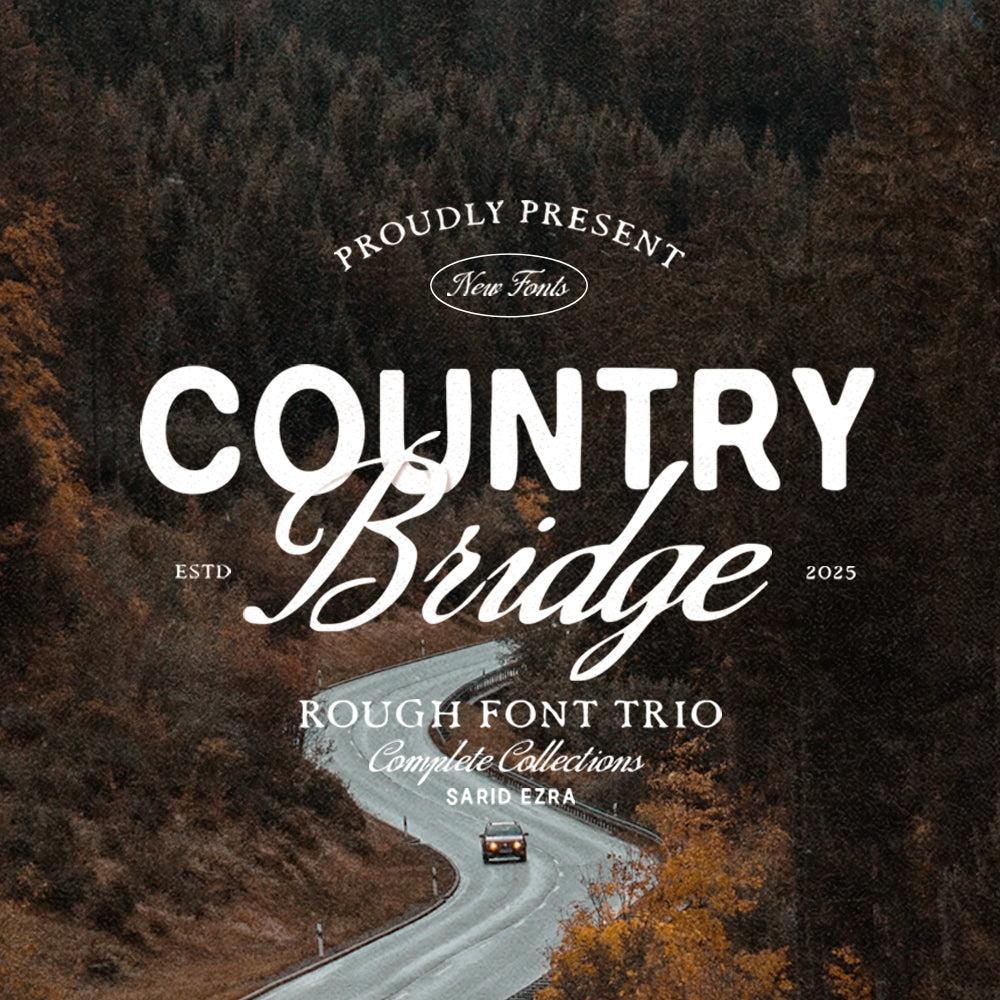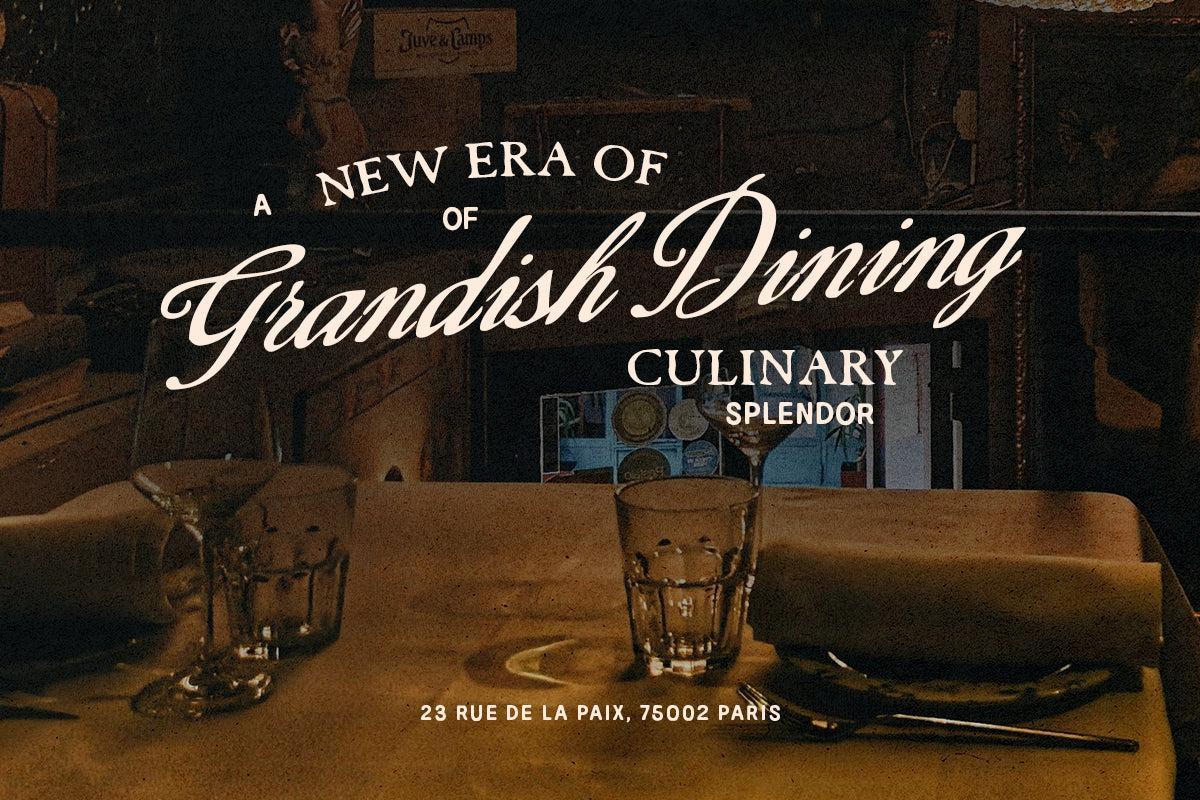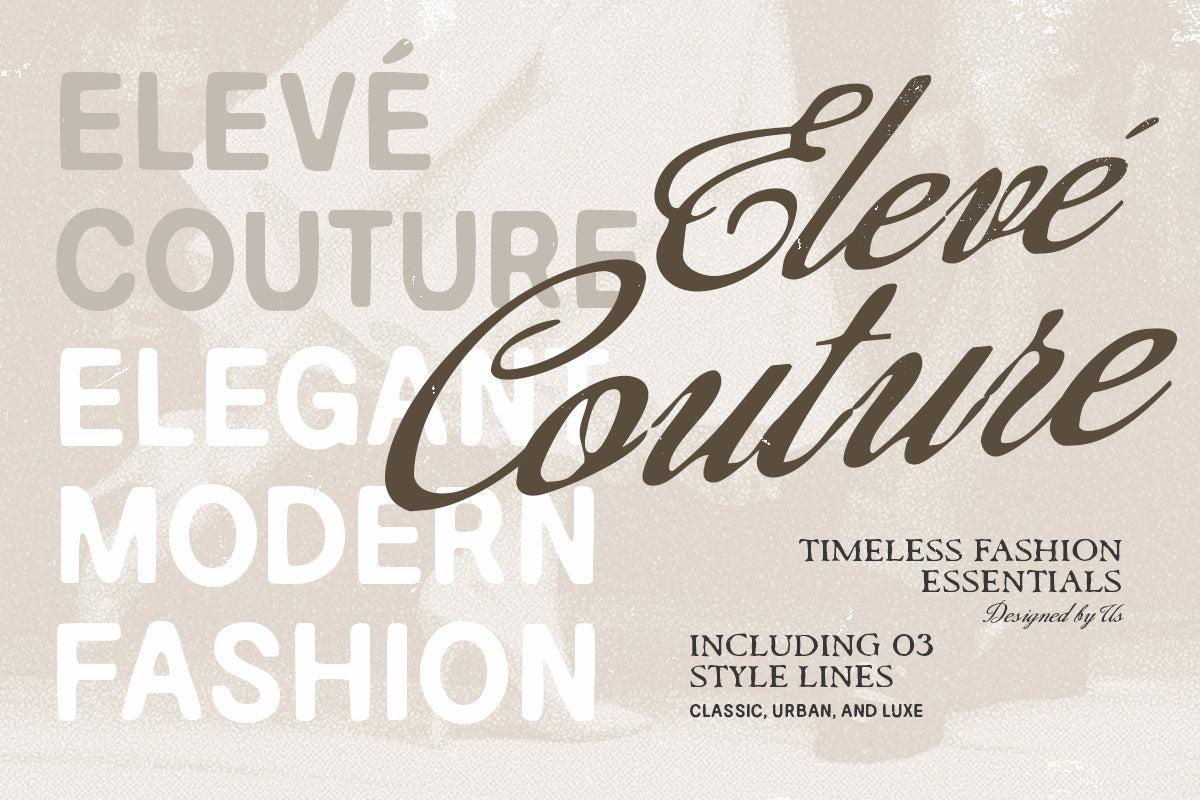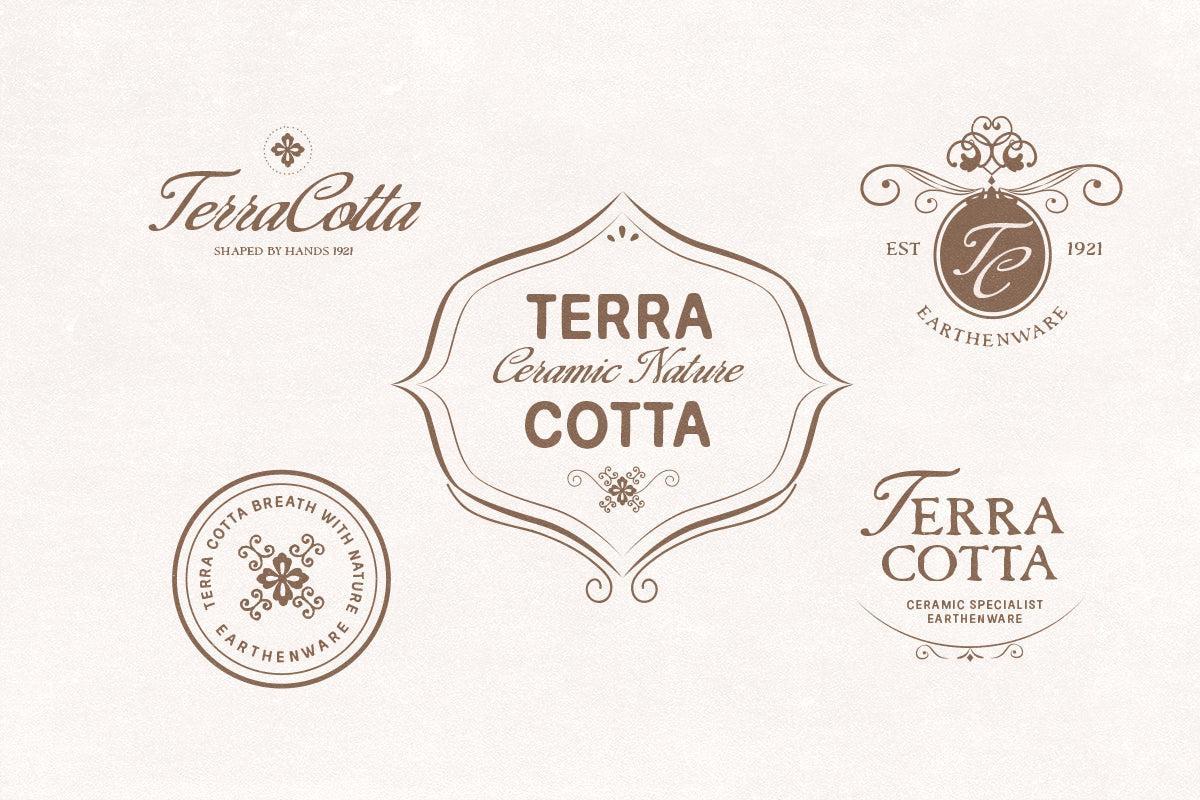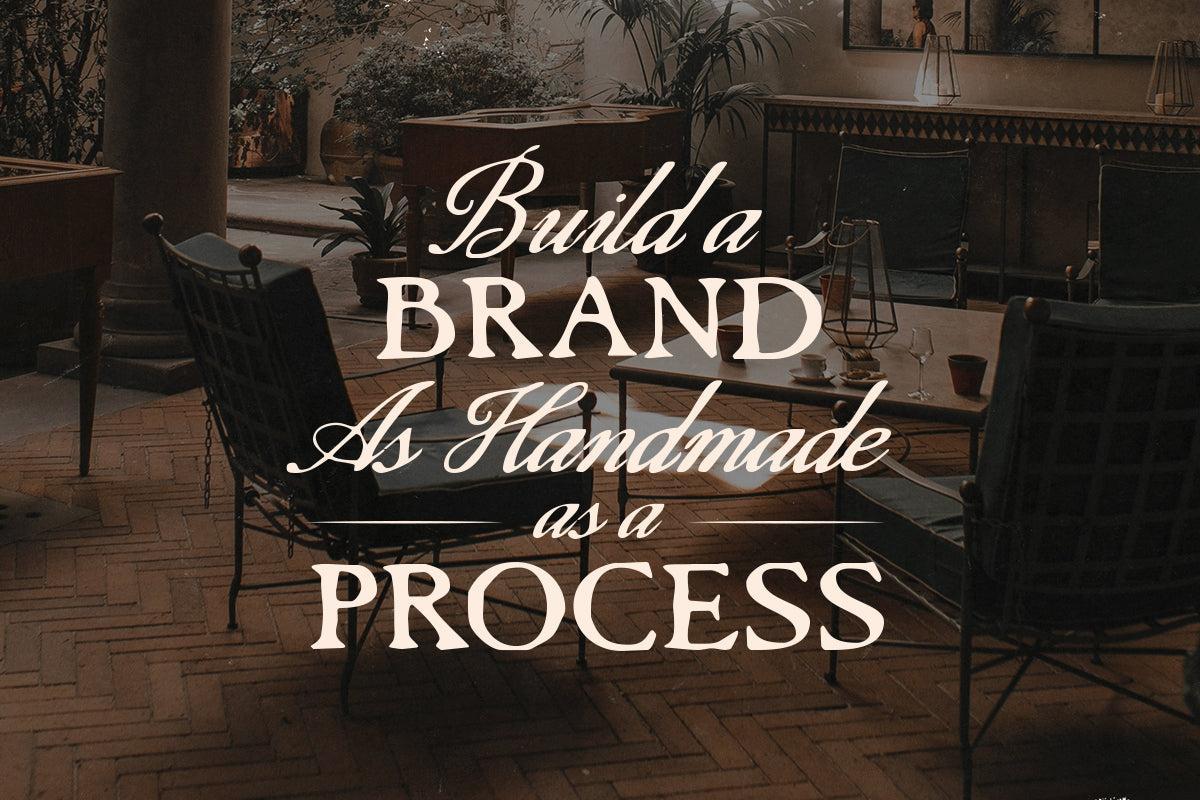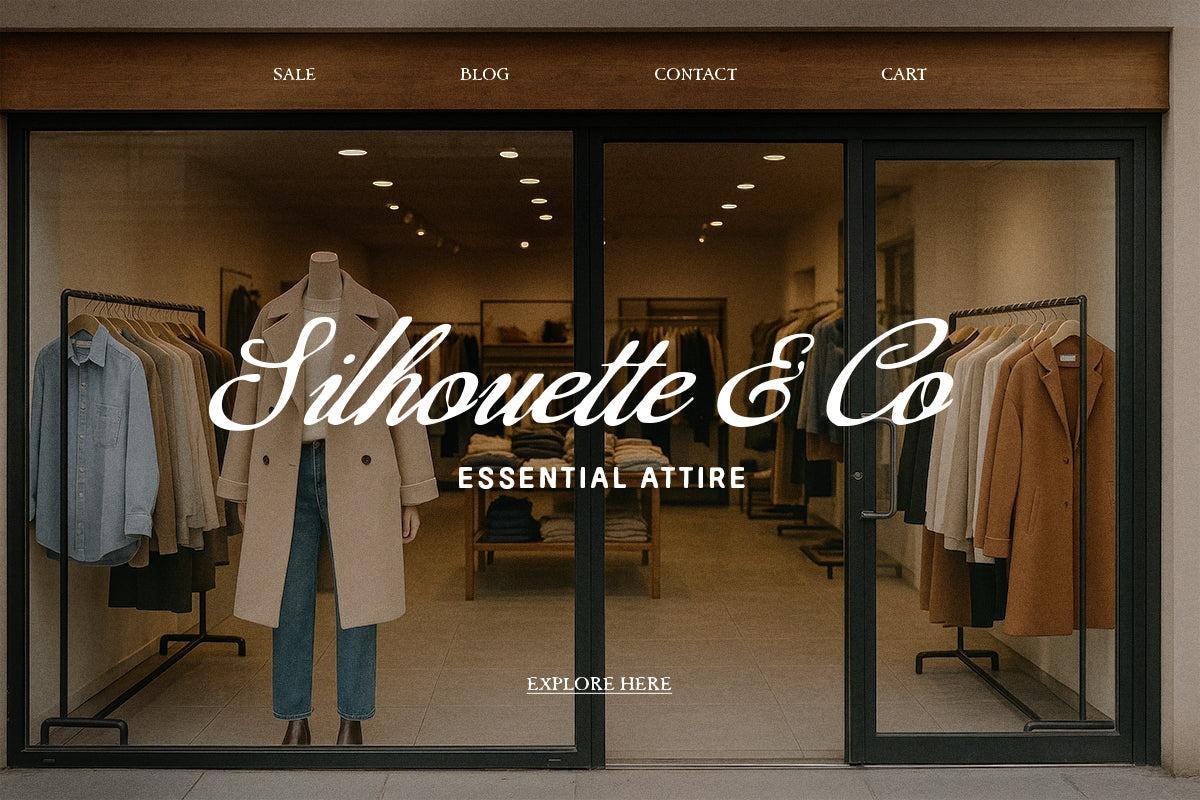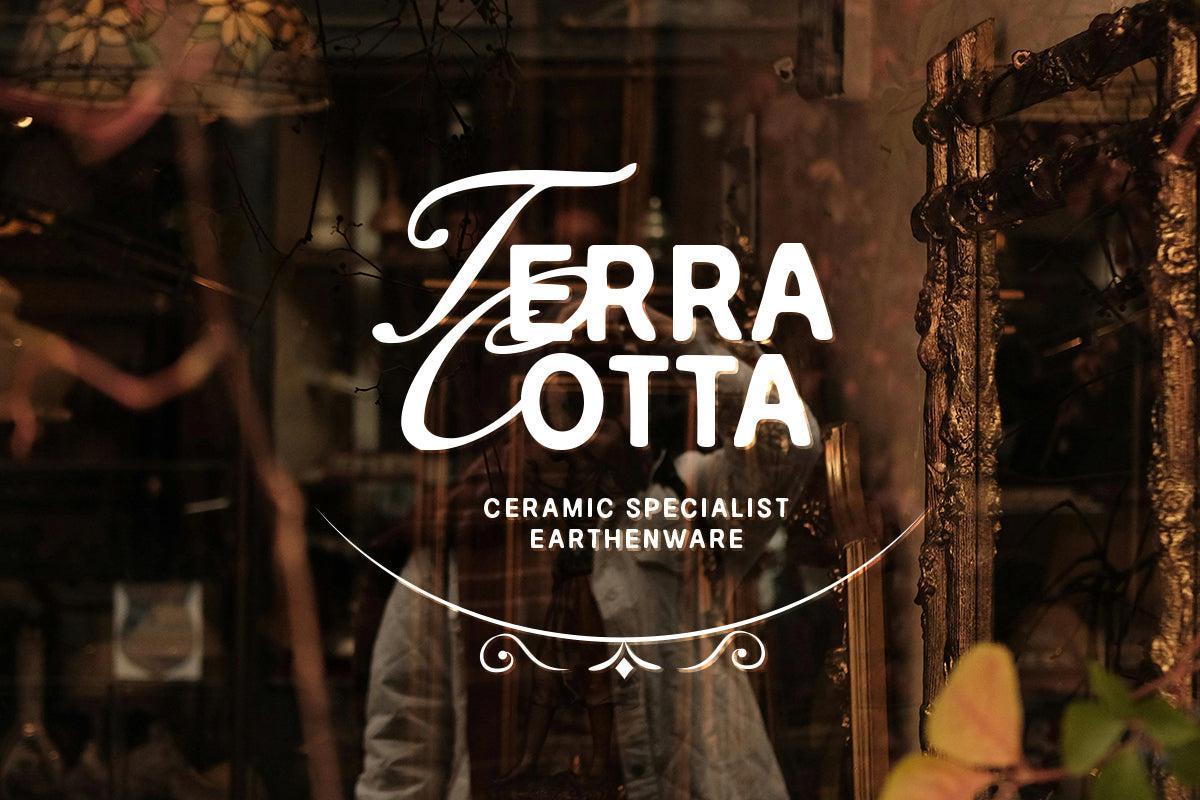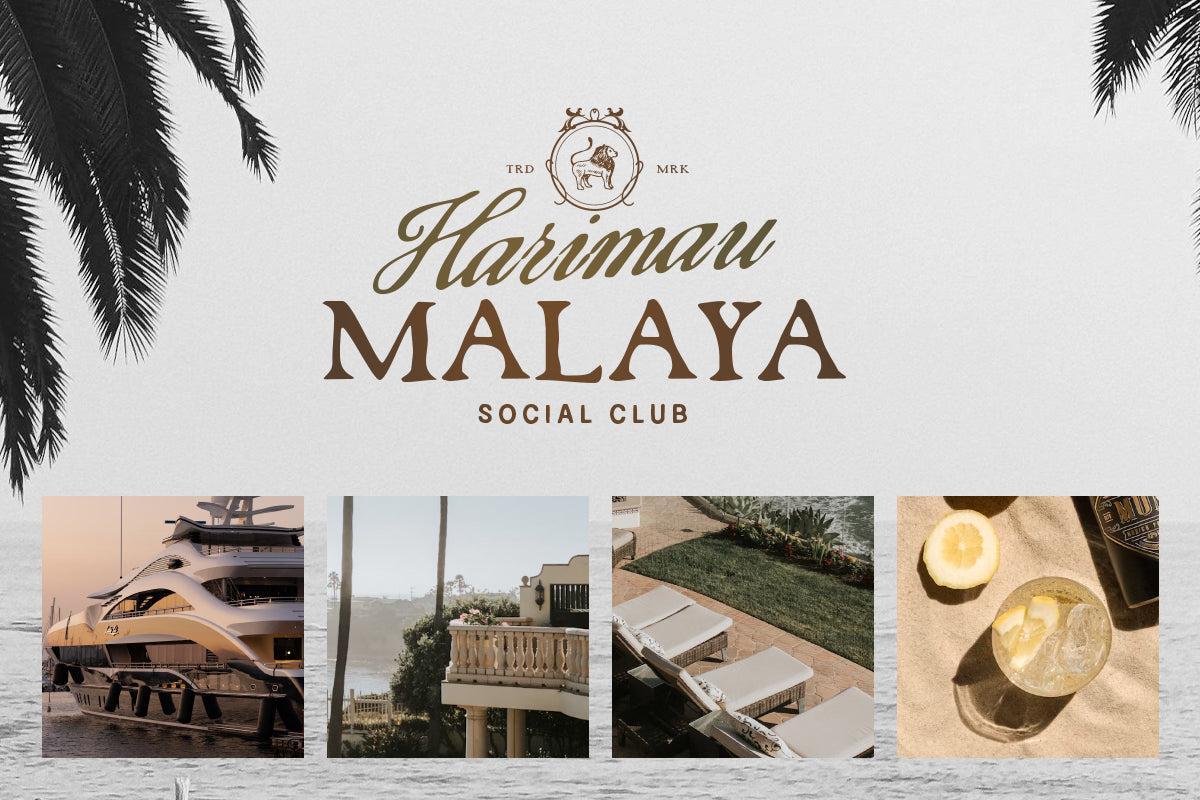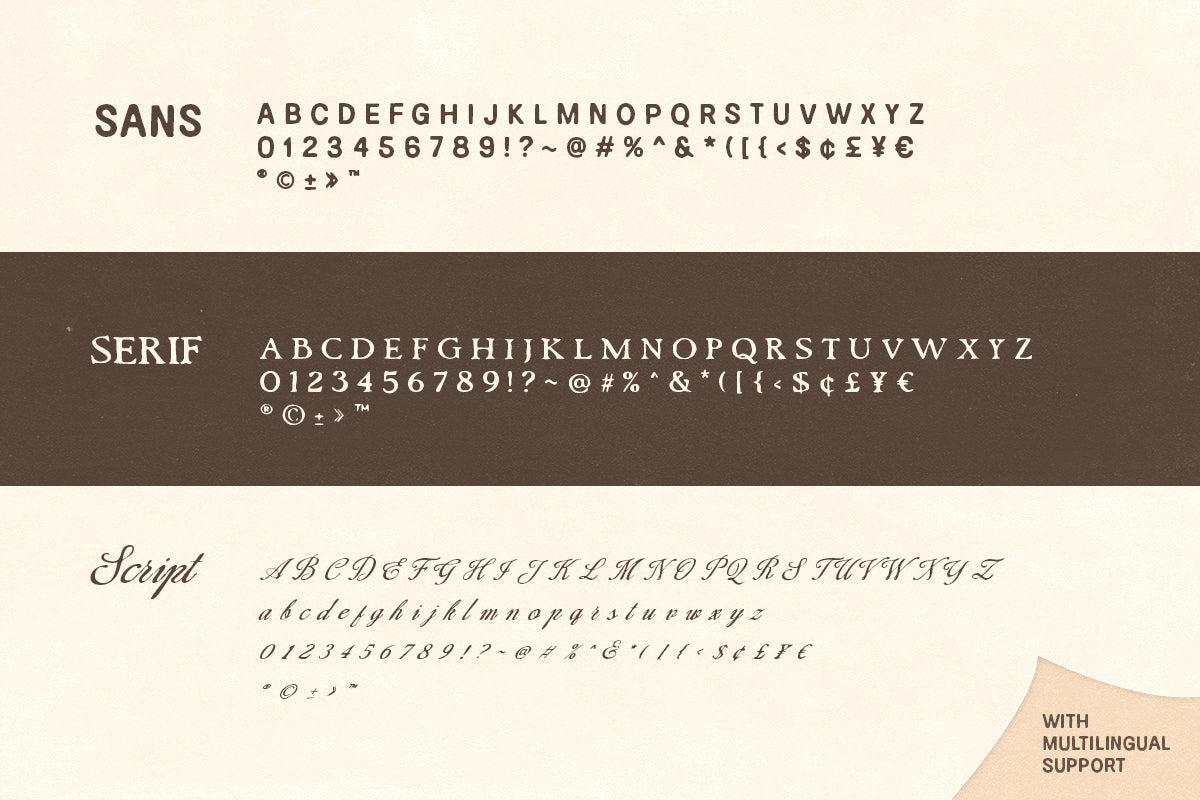
Country Bridge - Rough Font Trio
Country Bridge - Rough Font Trio is a versatile font collection featuring three complementary styles with a vintage and organic design. It supports multilingual characters, numbers, and symbols, providing a cohesive solution for various typography needs.